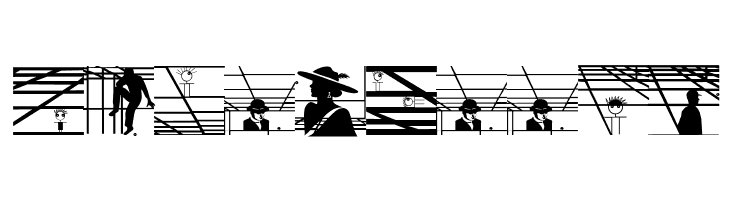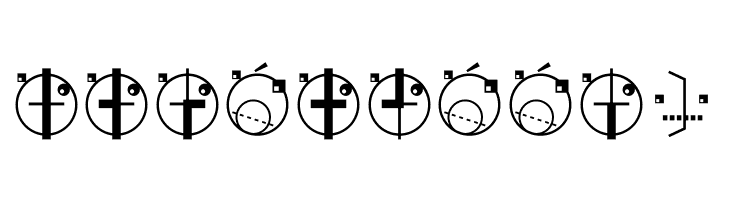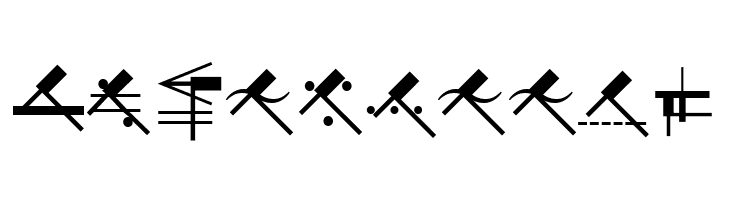
An artistic font featuring abstract human figures as characters.
Abstract, grid-based display font with experimental, chaotic forms.
A bold, angular font with a futuristic and avant-garde style.
An abstract, geometric font inspired by Suprematism, featuring bold shapes and lines.
A geometric, abstract font inspired by Suprematism, featuring bold, intersecting shapes.